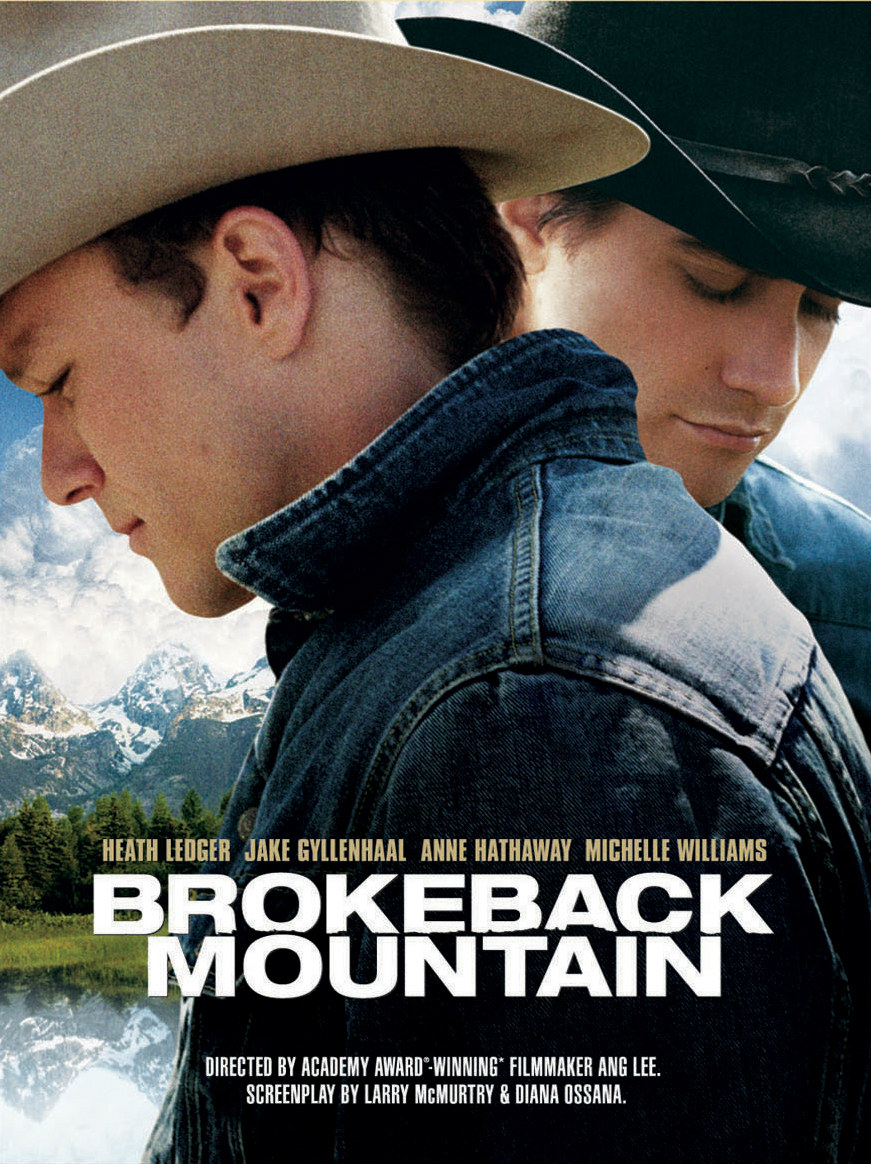
Brokeback Mountain Font
DramaBrokeback Mountain is a 2005 romantic-drama film that tells the story of two cowboys who fall in love while working on a summer sheepherding job but must keep their relationship a secret due to societal norms. The film received critical acclaim and won several awards, including three Academy Awards.
The title of the film on the poster features the Helvetica Neue 83 Extended Heavy font with few alterations. Helvetica Neue is a modernized version of Helvetica, a popular sans-serif typeface created in 1957 by Max Miedinger and Eduard Hoffmann.